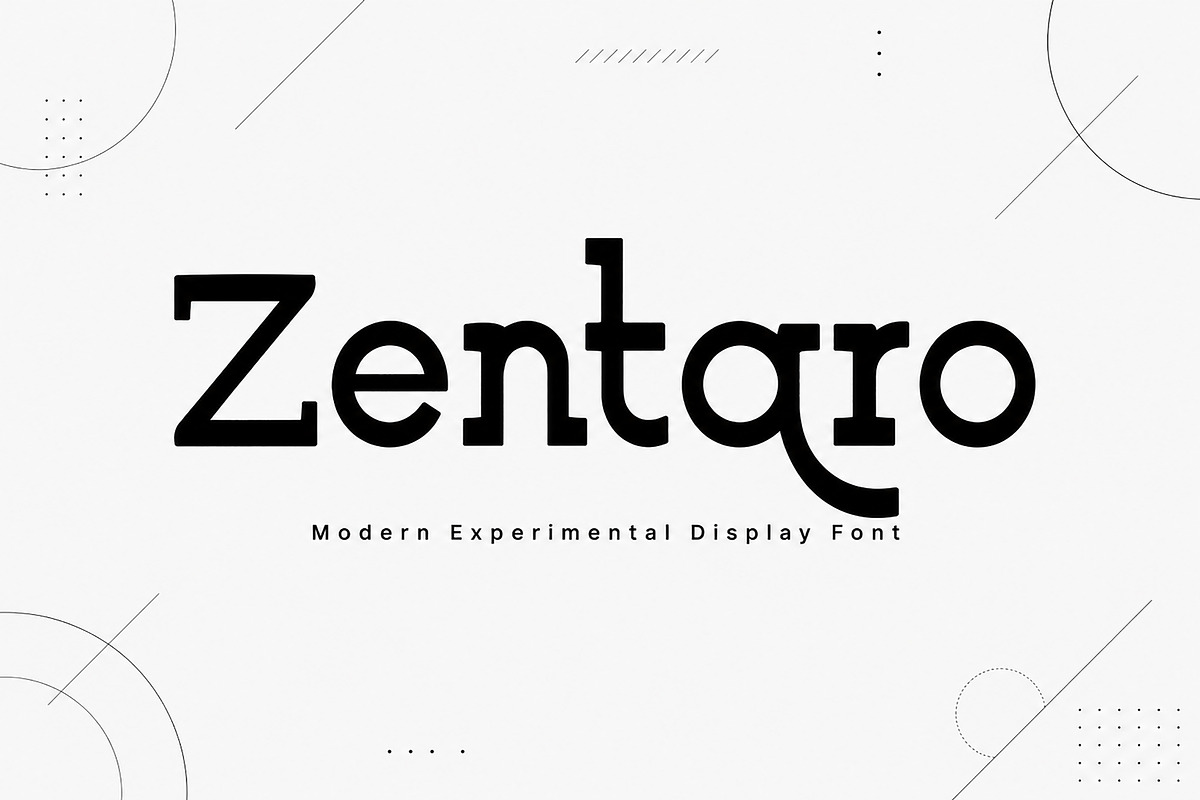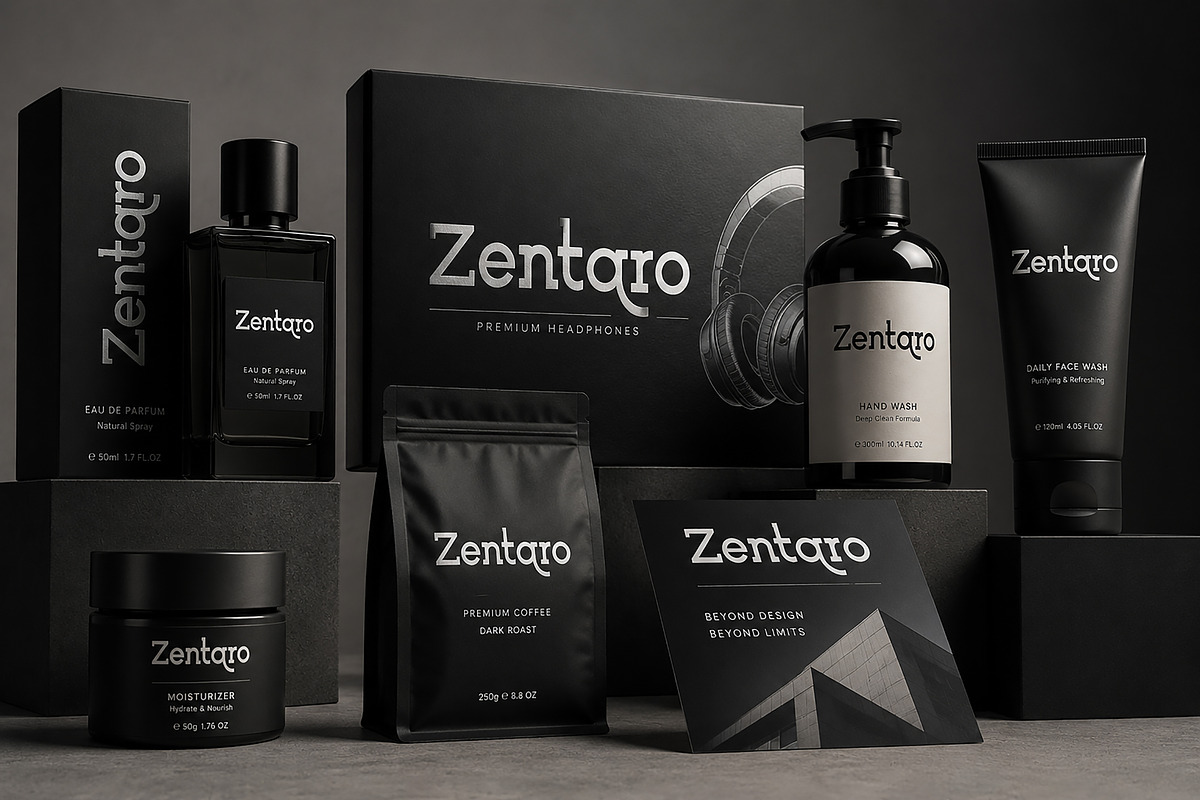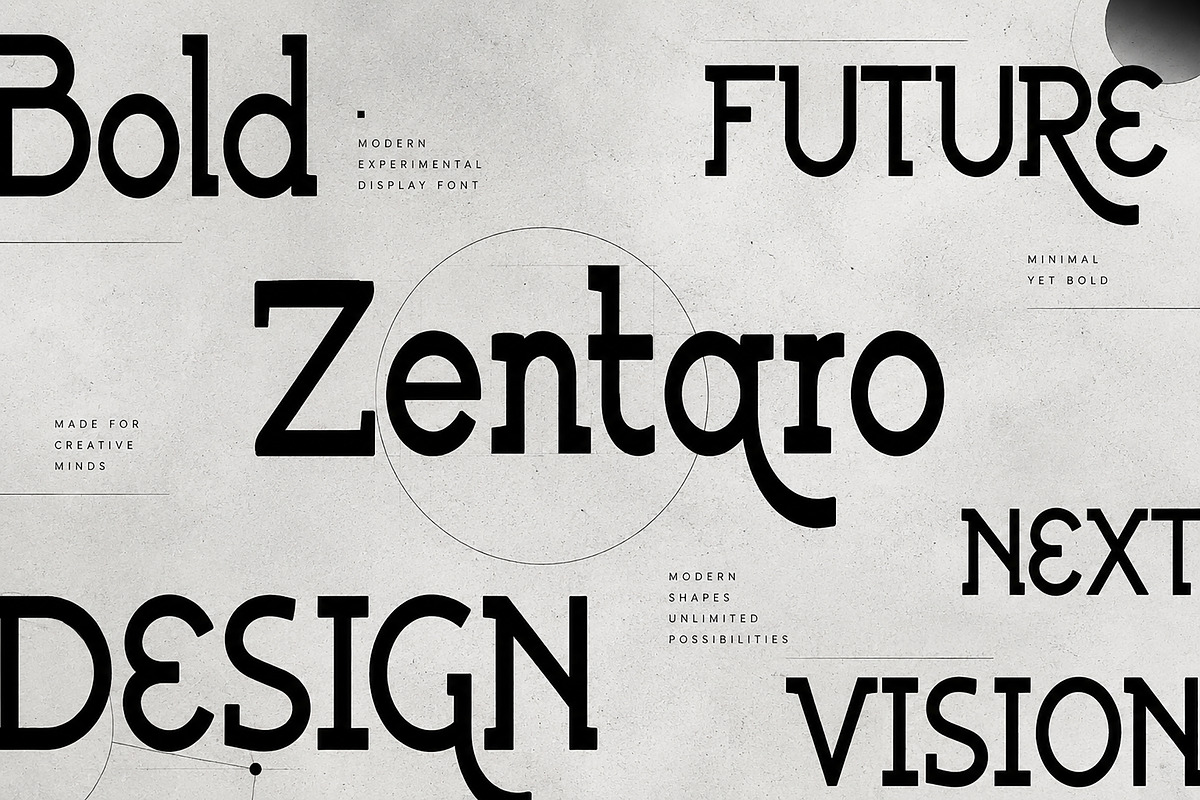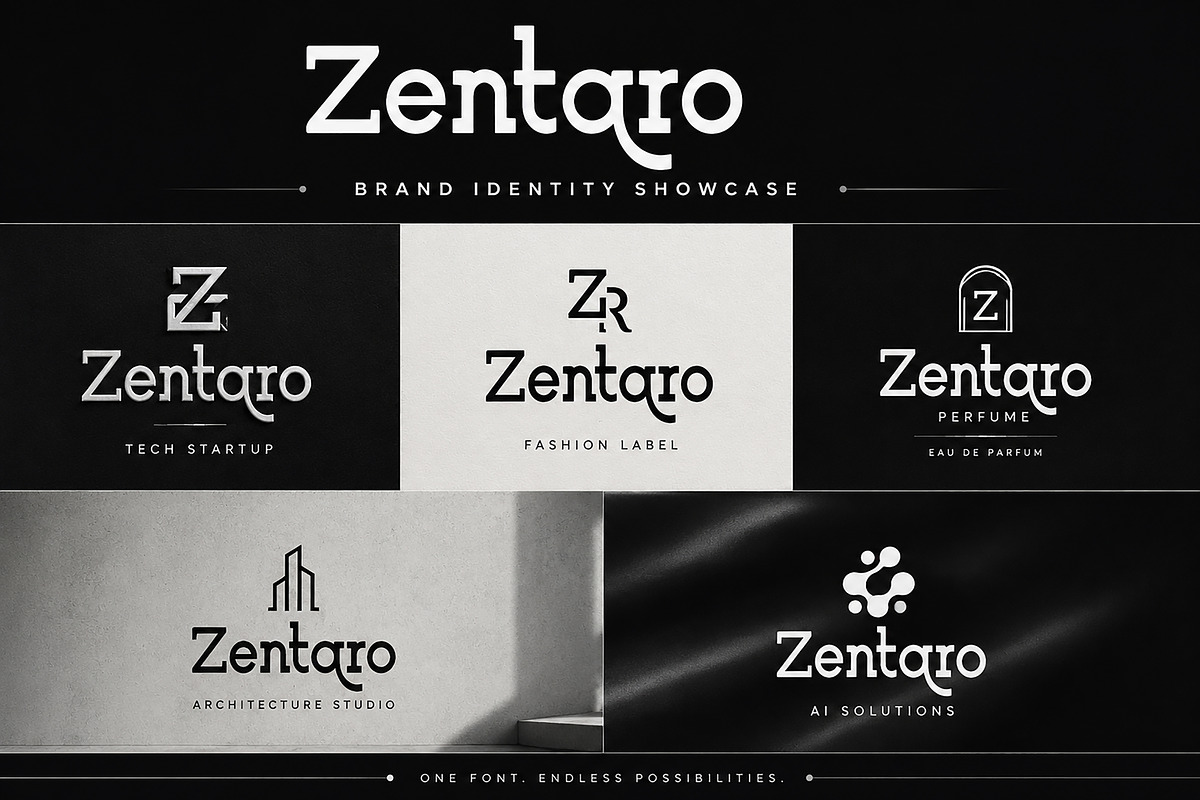
Zentaro
Zentaro – Modern Experimental Display Font
Zentaro is a modern experimental display font crafted with bold geometric forms and unique futuristic curves. Designed to stand out, Zentaro combines clean minimalism with distinctive character shapes, making it perfect for strong branding and high-impact visual projects.
Its stylish and unconventional letterforms bring a fresh contemporary feel, ideal for designers looking to create memorable logos, editorial headlines, luxury packaging, tech branding, fashion campaigns, posters, and social media graphics.
Whether you're building a futuristic brand identity or a sleek modern design, Zentaro delivers versatility with a bold visual presence.
Branding Projects
Editorial Headlines
Fashion Campaigns
Tech Startups
Luxury Labels
Posters
Social Media Content
Website Headers
Zentaro is built for creators who want a modern typeface with a powerful personality and clean futuristic aesthetics.